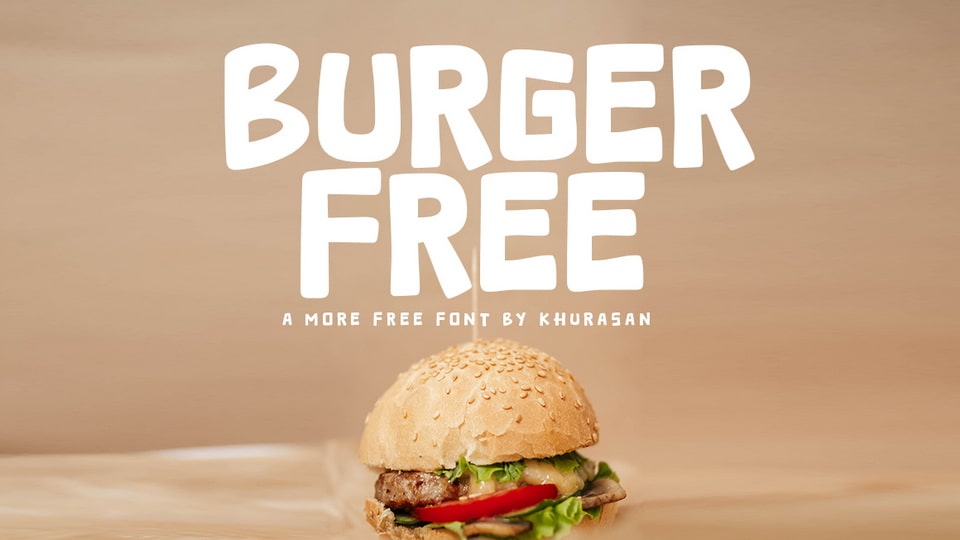
Download Burger Free font, a hand lettered display typeface that merges boldness with a playful spirit, adding a dose of lively charm to your designs. Burger Free font is a fantastic choice for eye-catching headlines and attention-grabbing text.